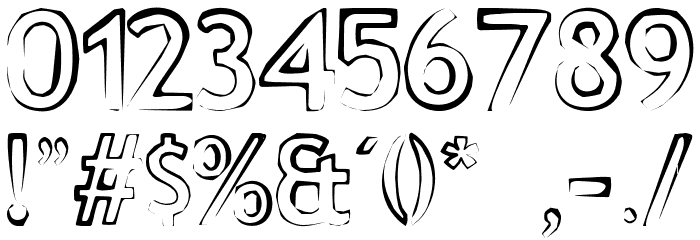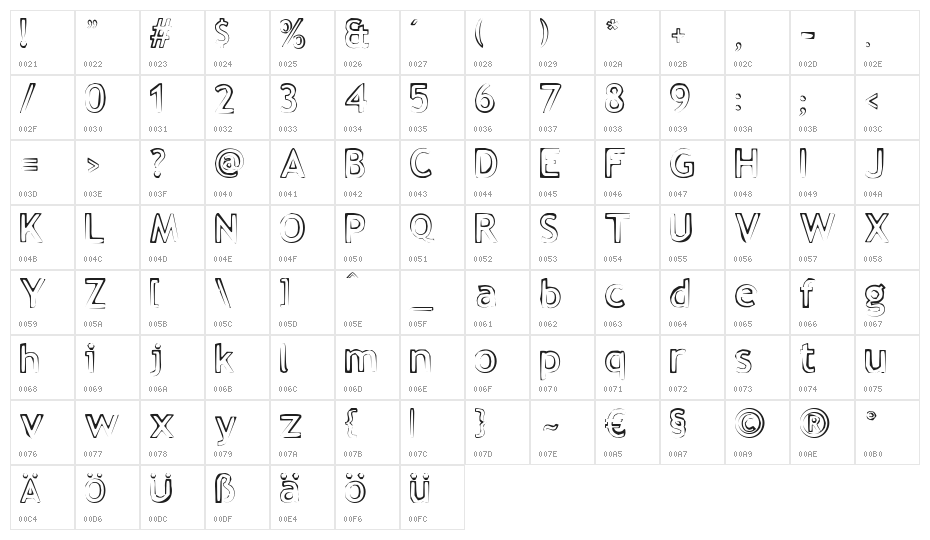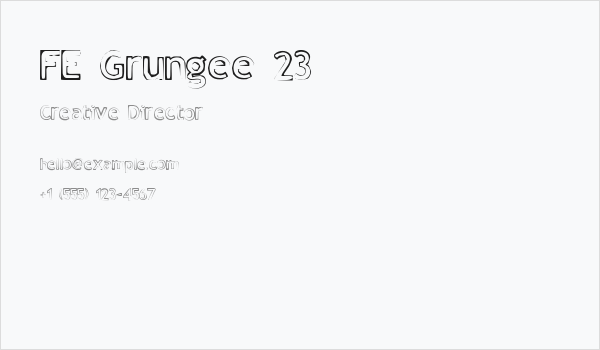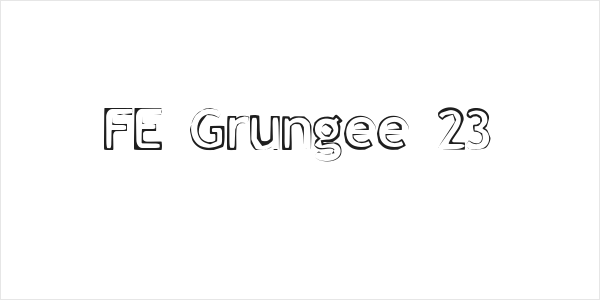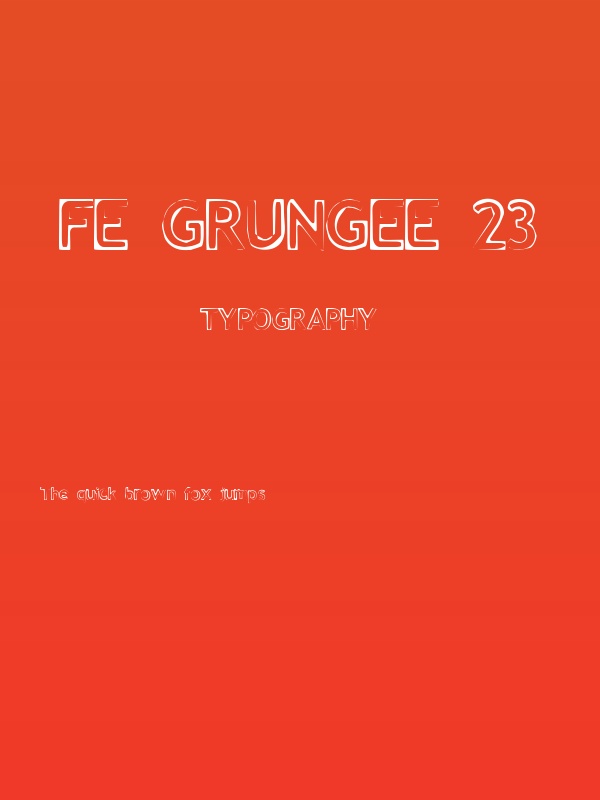
FE Grungee 23 Font
FE Grungee 23 Description
This font features a bold, distressed style with a grunge aesthetic. The characters have a rough, textured appearance, giving them a unique and edgy look. The uppercase and lowercase letters maintain a consistent style, with slightly irregular edges that add to the overall distressed effect. The numerals and special characters follow the same design, ensuring a cohesive appearance across all elements. This font is perfect for projects that require a bold statement or a vintage, worn-out feel. Its distinctive style makes it ideal for creative designs that aim to stand out.
| Overall Style | Grunge, Vintage |
| Proposed Projects | Ideal for album covers, posters, branding for edgy products, and any design needing a vintage or grunge look. |